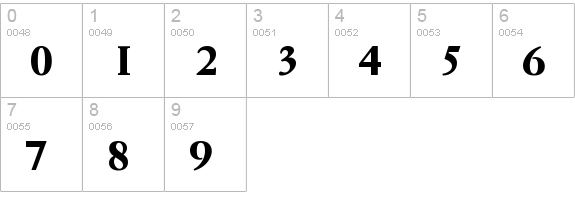
GarfeldSerial-Xbold font is a bold and eye-catching typeface that is perfect for making a statement in your design projects. Its strong and commanding appearance makes it ideal for headlines, titles, and other prominent text. The thick strokes and sharp edges create a modern and edgy look that will surely grab attention. Best of all, GarfeldSerial-Xbold font is available for free download at FontsMarket.com. This means you can easily add this striking typeface to your collection without any cost. Whether you're working on a poster, logo, website, or any other creative project, GarfeldSerial-Xbold font will help you stand out and make a lasting impression. Download it today and unleash the boldness in your designs!